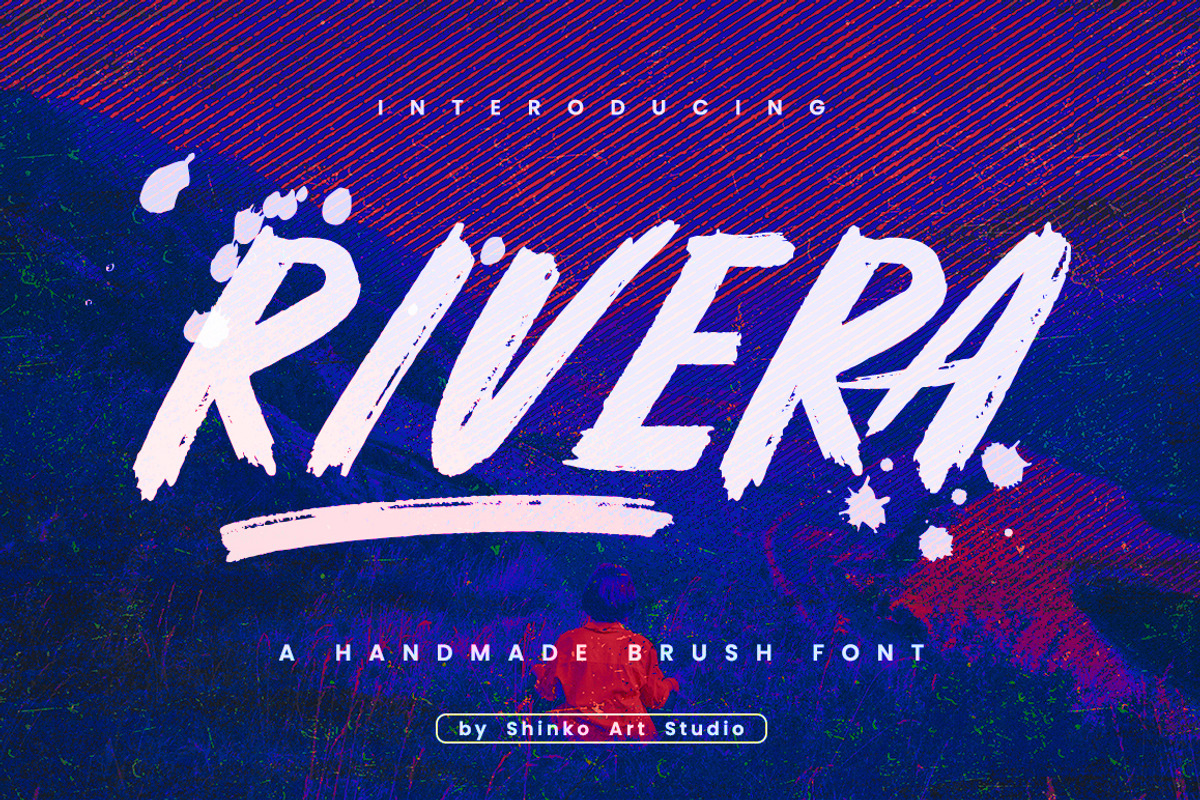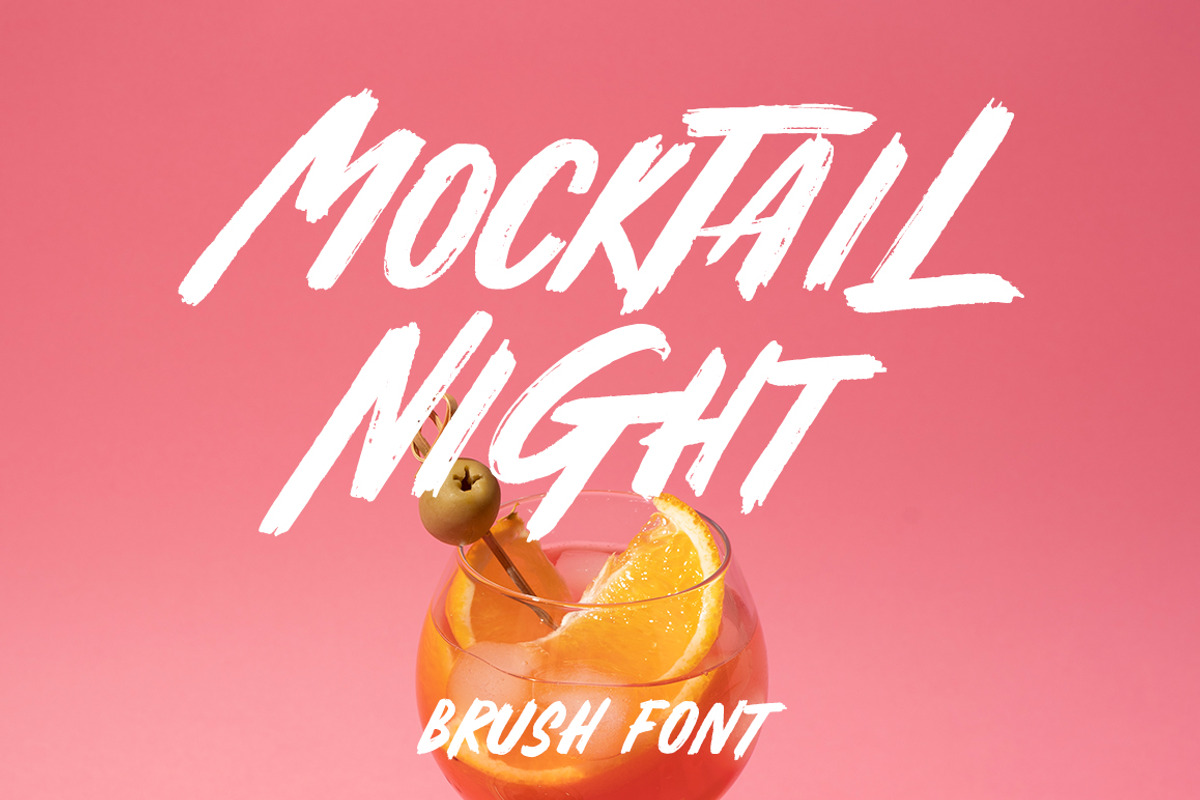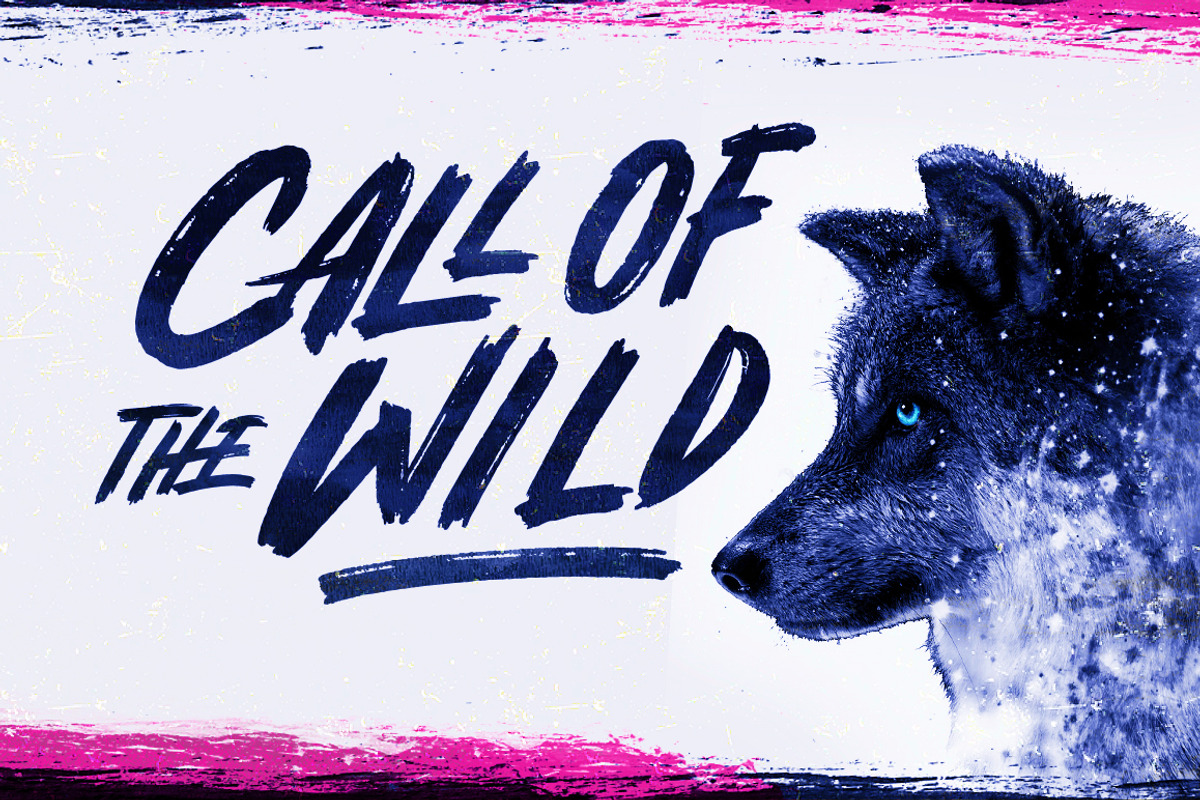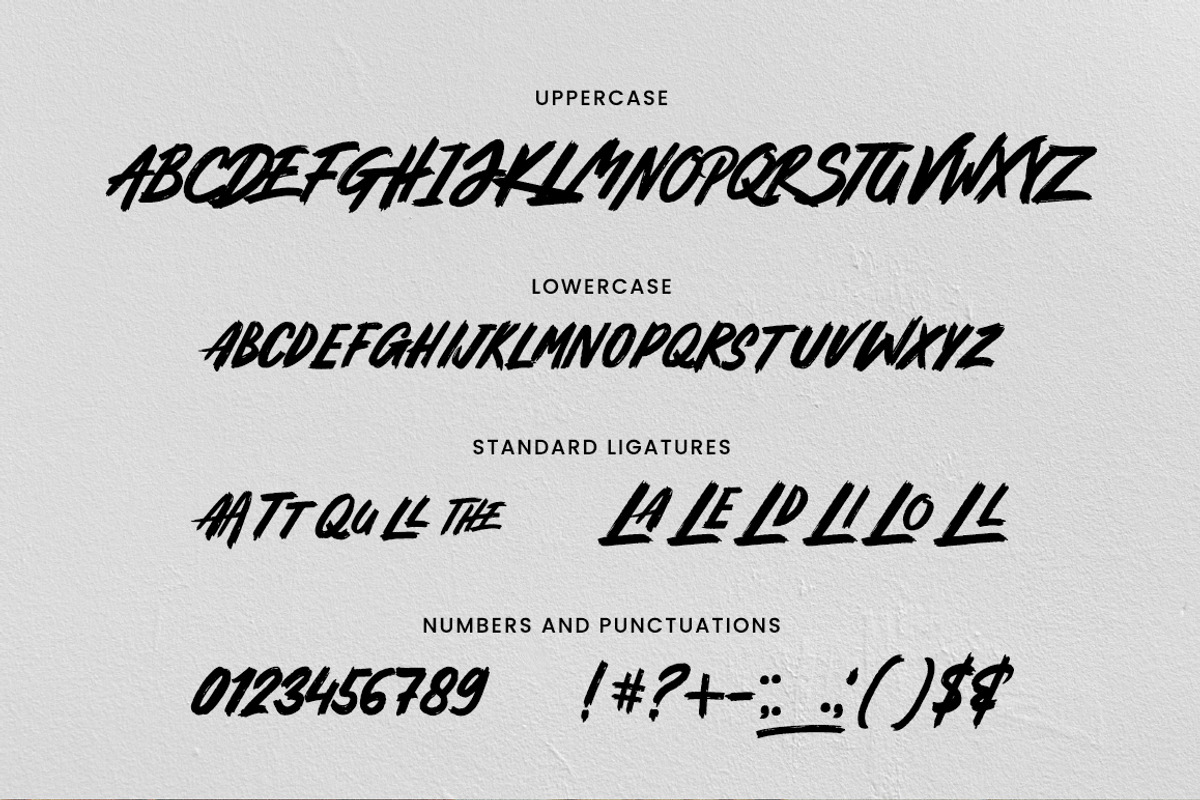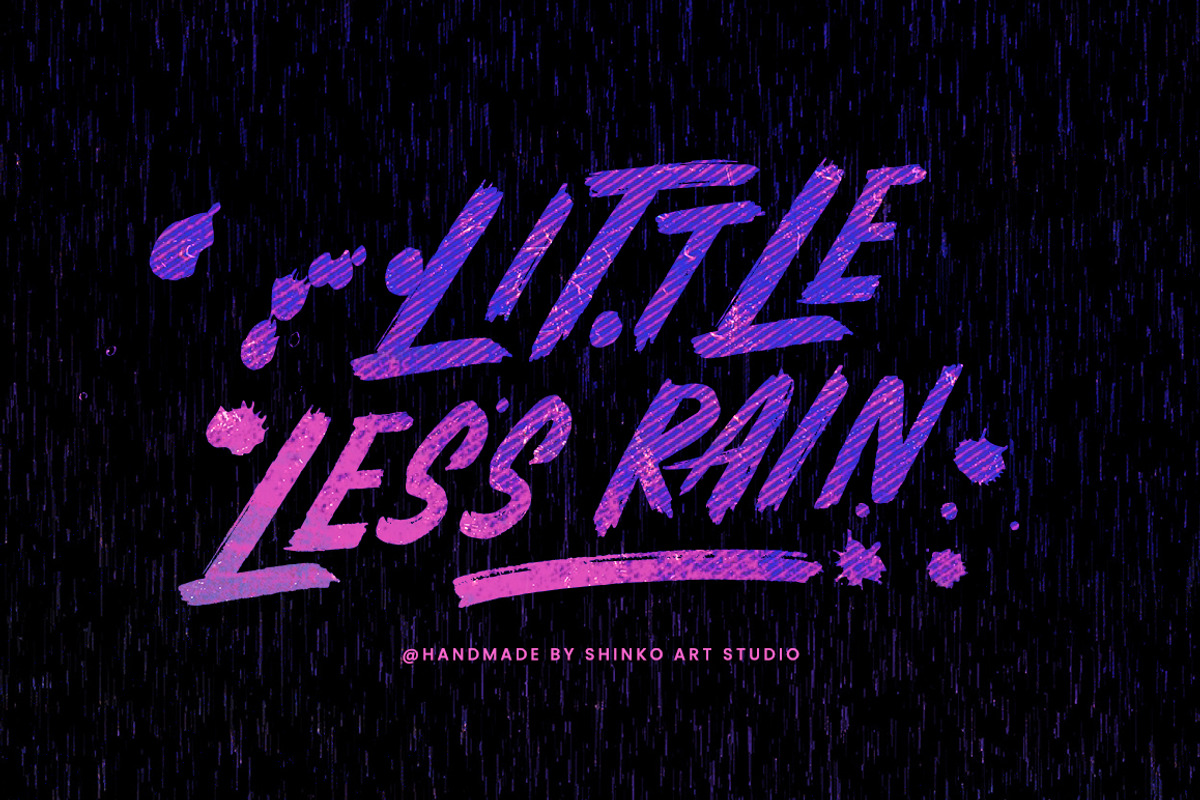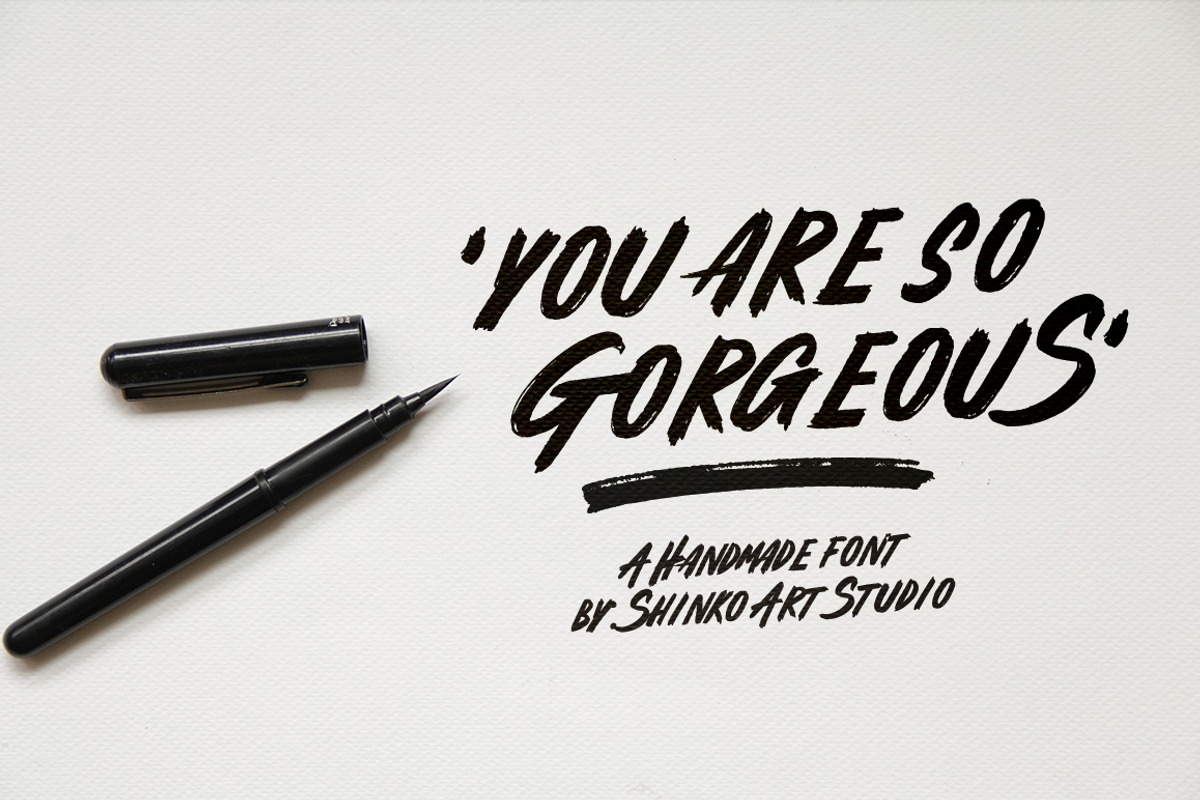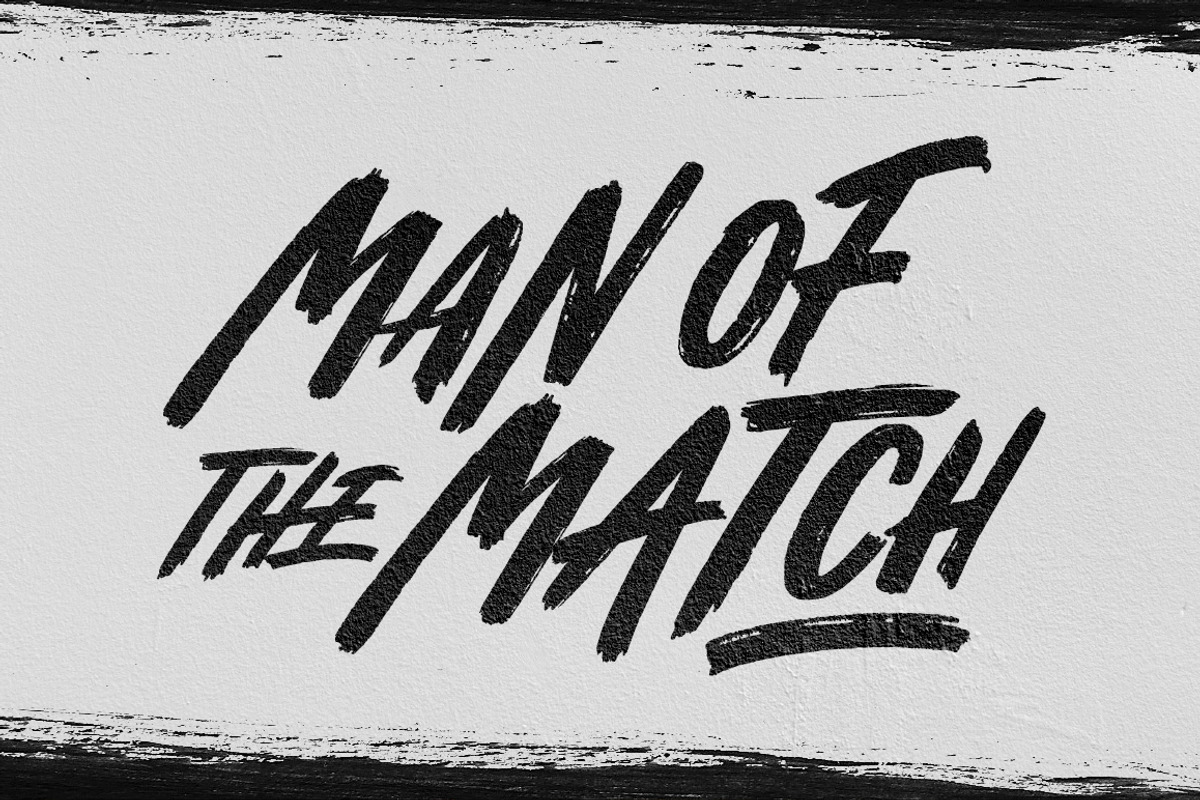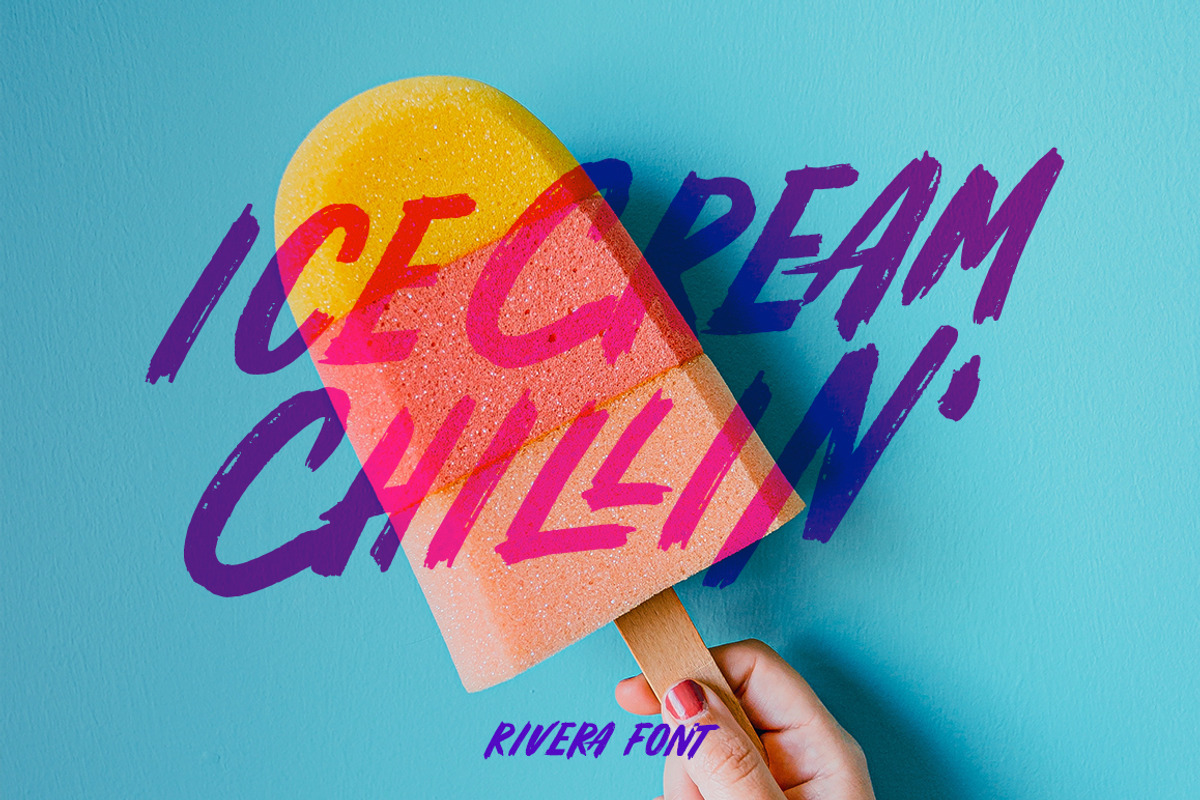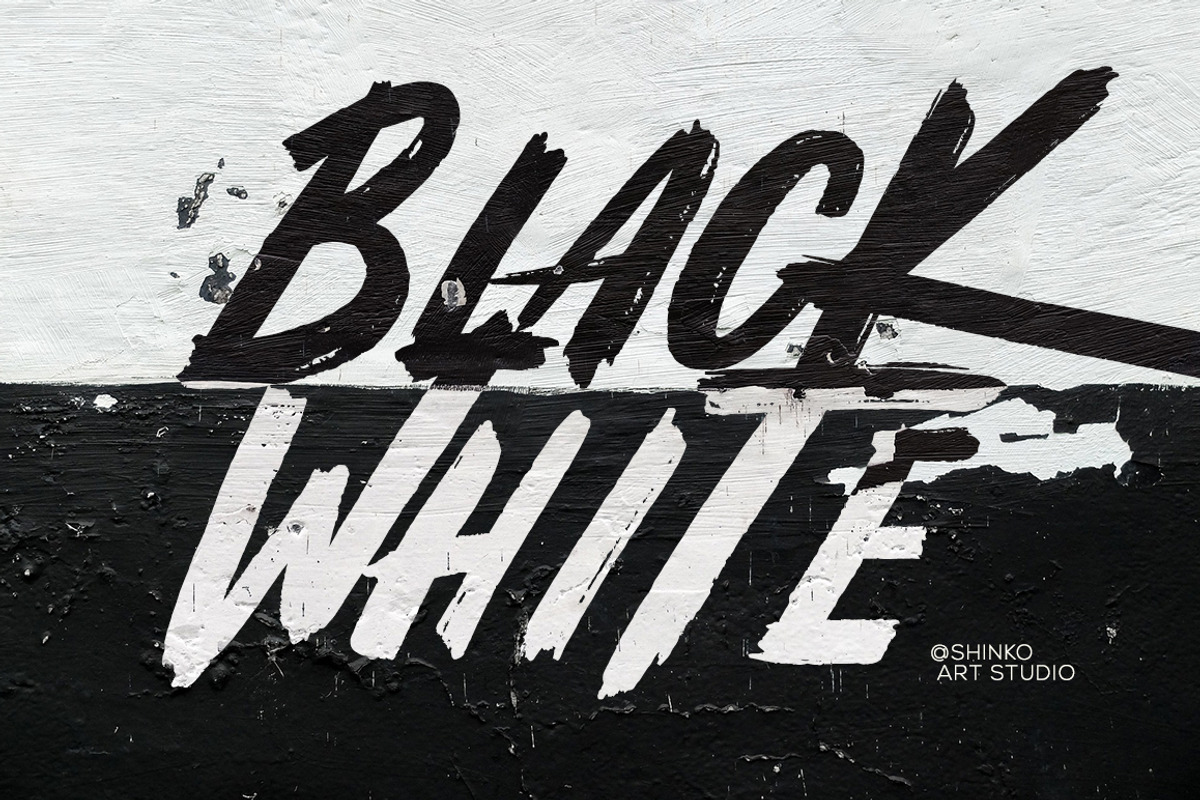
Rivera Brush Font
Rivera is a bold brush font with a handmade brush texture which add an authentic touch to your projects according to your needs. Besides that, this font is also equipped with Alternative Characters, Standard Ligatures, Punctuations and Symbols.
Rivera is ideal for headings, flyers, greeting cards, product packaging, book covers, printed quotes, logotype, album covers, and even for cool graffiti.